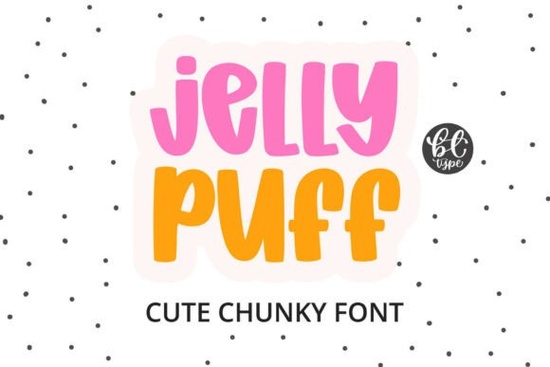
When you need a typeface that feels like a soft, inflated balloon, Jelly Puff Font delivers exactly that. This chunky display font is built with exaggerated thick strokes, perfectly rounded terminals, and zero sharp corners. The result is a lettering style that looks plush, bouncy, and almost edible ideal for designs that need to stop the scroll with a big dose of sweetness.
What Makes Jelly Puff Font Stand Out?
The first thing you notice is the volume. Every character carries a generous, pillowy weight that feels volumetric rather than flat. The short ascenders and descenders keep the word shapes tight and blocky, which makes the font hit hard when used in headlines, badges, or packaging layouts. Because the forms are purely rounded with no stems, spurs, or nicks the overall mood stays ultra-friendly and approachable. That softness is exactly what you want for anything targeting a younger audience or a playful, feminine brand.
A few design details worth noting:
- Uniform stroke width across all letters maintains a consistent squishy rhythm.
- Compact letter height (short x‑height, short ascenders/descenders) creates a dense visual block that stands out in crowded designs.
- No sharp edges anywhere, so it works beautifully as a companion to curved die‑cut shapes or rounded stickers.
- The volumetric, 3‑D hint gives it a lollipop or gummy candy vibe without needing layer effects.
Which Projects Are Ideal for This Chunky Bubble Font?
Think of any design where you want to say “fun,” “friendly,” or “sugary” Jelly Puff slides right in. It loves sweet packaging, children’s book covers, birthday party graphics, and sticker sheets aimed at a young or cute aesthetic. Many designers pair it with pastel palettes for girly branding, but it can also carry a neon pop vibe for YouTube channel art or animated thumbnails.
Typical use cases include:
- Candy and dessert packaging the letterforms mirror the roundness of gummies, macarons, and lollipops.
- Children’s brand identities from daycare logos to toy packaging, the friendly tone avoids anything intimidating.
- Sticker designs and planner decals the shape itself feels like a sticker, so it integrates seamlessly.
- Animated title sequences the bouncy silhouette responds well to squash‑and‑stretch animation.
- Feminine, bubbly logos boutiques, beauty salons, or influencer merch that wants a soft, inviting feel.
Can You Use Jelly Puff with Cricut and Silhouette Machines?
Absolutely and that’s where many crafters fall in love with it. The thick, continuous outlines of Jelly Puff Font create clean, sturdy cut lines, so your vinyl decals, cardstock banners, and iron‑on projects come out looking precise. You don’t have to worry about delicate serifs or thin strokes that tear during weeding. The font’s compact structure also helps minimize material waste when you’re squeezing multiple words onto a small cutting mat.
Keep a few things in mind when preparing a cut file:
- Set a slight offset if you want a decorative border around the letters the chunky base shape makes offset paths easy to generate.
- Since the counters (the inside holes in letters like ‘o’ and ‘p’) are large and rounded, they weed out smoothly without snagging.
- It works well with foam sheets and thick glitter cardstock because the letterforms maintain readability even at small sizes.
How Does It Compare to Other Playful Display Fonts?
If you’re browsing Creative Fabrica’s display section, you’ll spot many options for bold, kid‑friendly type. Jelly Puff sets itself apart with its extreme softness and candy‑coated vibe, but several other designs complement it nicely. For instance, if you need something with a little more wiggle and bounce, a font with a playful dancing baseline might match a bouncy animation better. On the other hand, when you want a chunkier, more rugged cut‑out look for something like a birthday sign, a rough‑hewn chunky style can bring a homemade feel that still reads clear.
Where Jelly Puff leans sugary and squishy, a bright comic‑inspired typeface channels a cartoon speech‑bubble energy, and a faceted display lettering design offers a precious, jewel‑like sparkle for more elegant craft projects. If your brand leans sporty or school‑spirited, a collegiate lettering design delivers a totally different kind of impact while keeping the bold, blocky silhouette. Layering these with Jelly Puff in the same toolkit lets you match the exact personality of each project without settling for a one‑size‑fits‑all font.
Pairing Jelly Puff with Other Typefaces
Because Jelly Puff is a loud, decorative display font, it needs a quiet partner for body copy. A clean, geometric sans‑serif (like a simple neutral font with round dots on the ‘i’) balances the exuberance without competing. Stick to light or regular weights and avoid anything condensed, which would clash with the puff’s wide footprint. For a more playful combination, layer it with a skinny, tall script the contrast between the bouncy block letters and the delicate script creates a trendy, YouTube‑cover‑style layout that feels modern and handmade at the same time.
Where to Find and Install This Sweet Font
You can grab Jelly Puff Font from Creative Fabrica’s massive library. After purchase or subscription, you’ll typically download a zip file containing OTF and TTF formats, which install on both Windows and Mac like any standard font. Once installed, it appears in your font menu, ready for Photoshop, Illustrator, Procreate, Cricut Design Space, or any software that supports system fonts. If you work with tablets, you can sideload the TTF file into your drawing app’s font folder manually the full coverage of uppercase, lowercase, numbers, and basic punctuation is included, so you won’t hit missing glyphs mid‑project.
Quick start checklist:
- Download and install the OTF file for best printing paths.
- Test two or three word shapes before committing very long phrases can lose legibility at small sizes.
- Pair with a light, neutral sans‑serif for social media graphics.
- Use a bright or pastel color palette to amplify the candy feeling.
- For cut projects, perform a small test cut on scrap vinyl to fine‑tune pressure settings.
- Explore similar display fonts to build a cohesive set of playful voices for different clients.